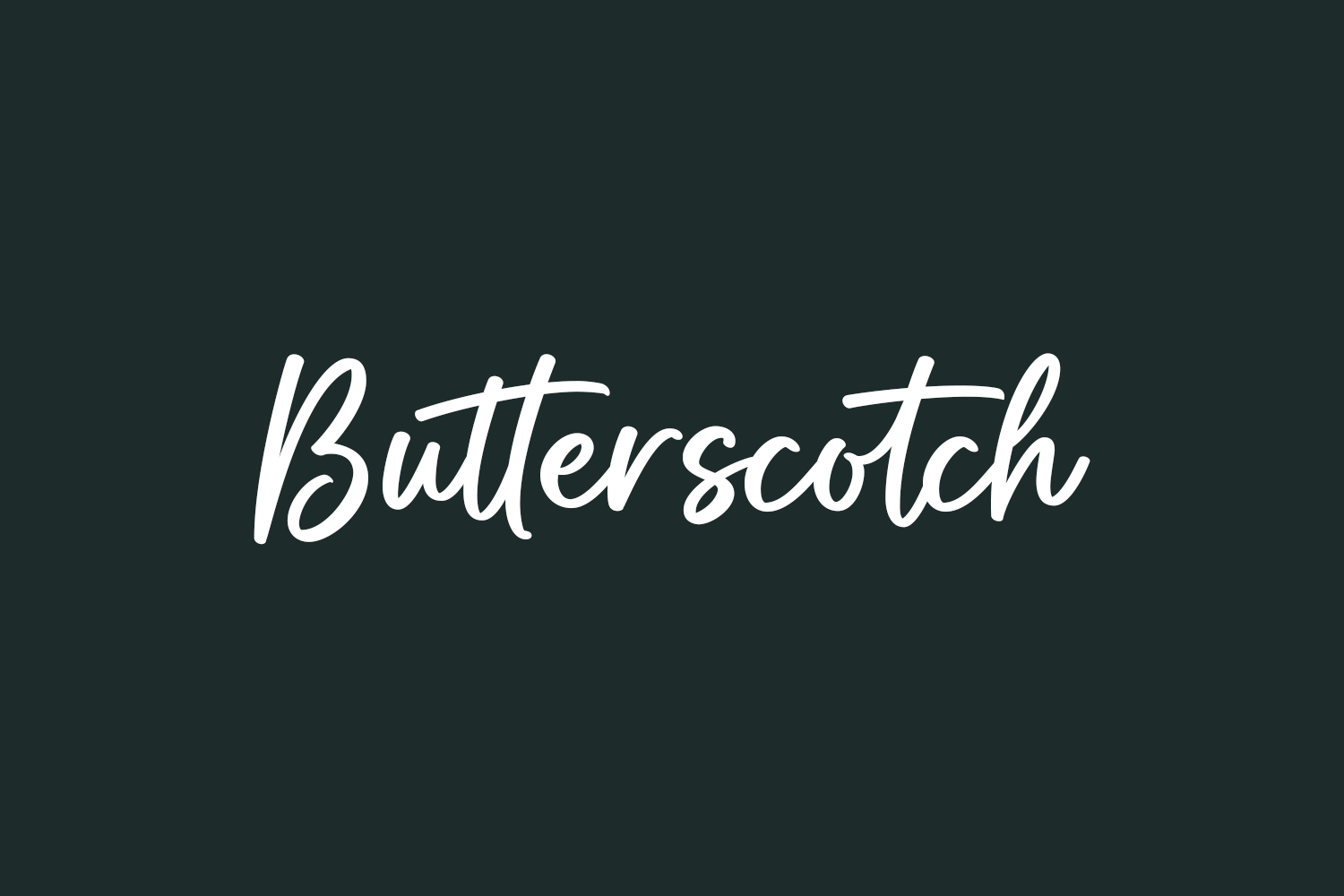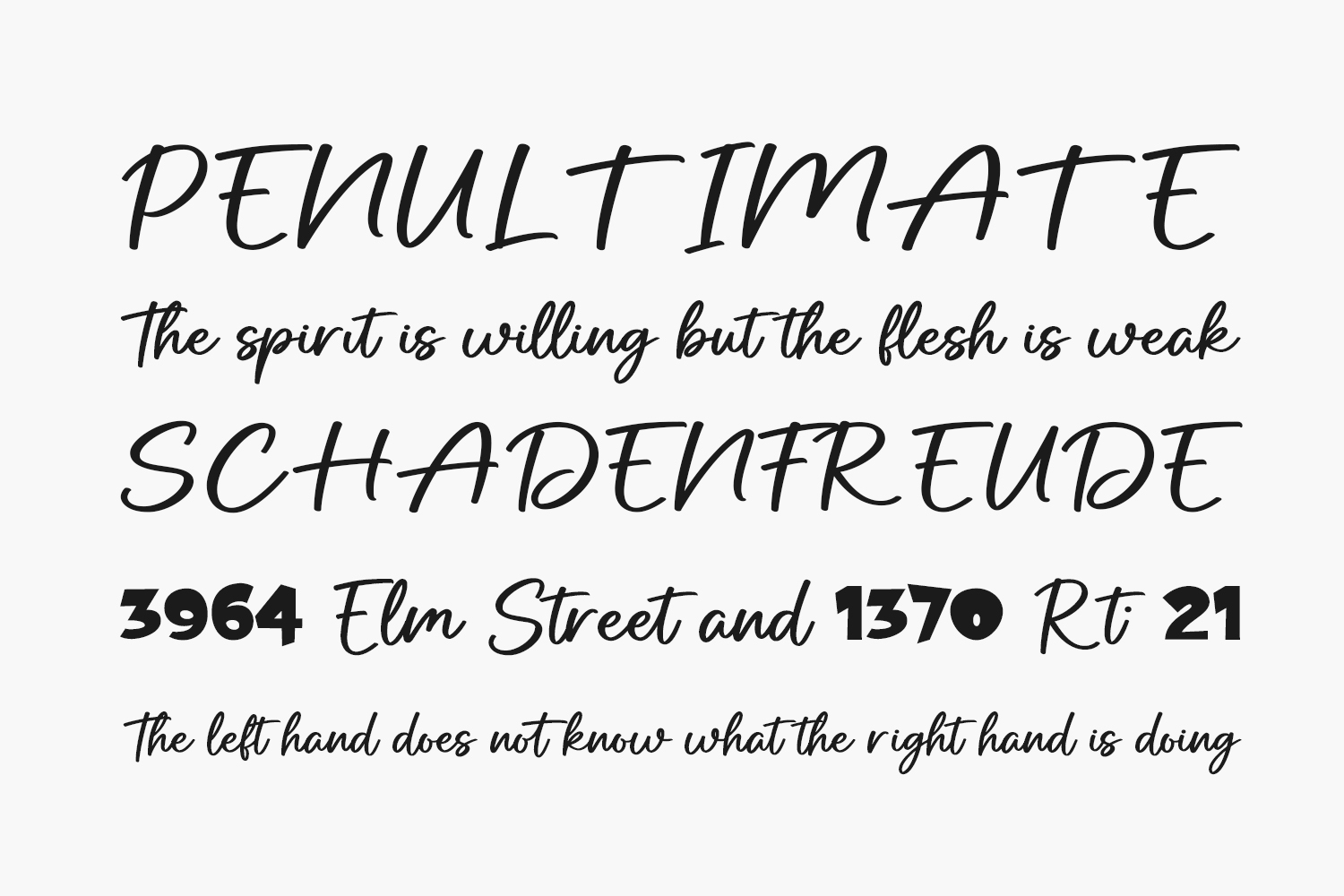
Butterscotch Free Font is a refined and graceful handwritten font with a flowing charm. Its exquisite and harmonious characters make it a versatile choice that complements a wide variety of design projects. Butterscotch Free Font is a demo and free for personal use only. Please purchase the full version for commercial use.
Designed by Graphix Line Studio